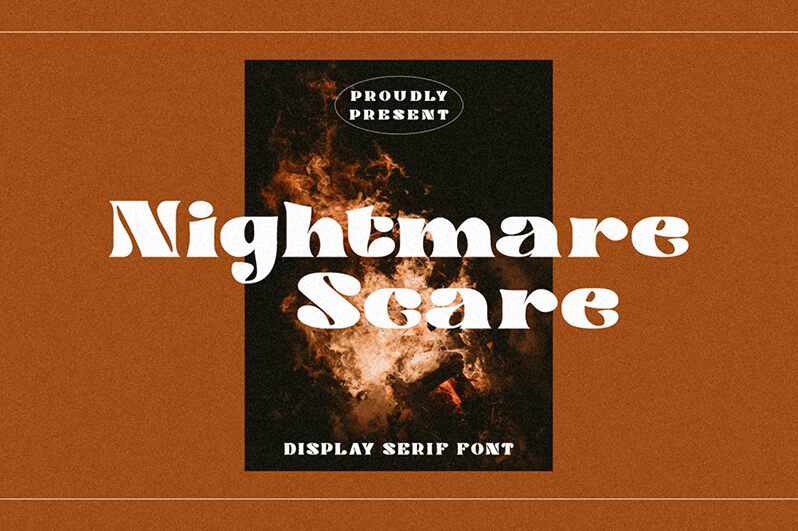
Nightmare Scare, the brainchild of Typegoals Labs, is an extra-bold vintage display font that exudes a chilling aesthetic.
With its expanded width, this font is perfect for horror movie posters, haunted house flyers, and Halloween-themed designs. Its bold and dramatic appearance will make your headlines stand out in the darkness, captivating viewers with its eerie charm. Nightmare Scare brings back the nostalgia of classic horror films while adding a modern twist to your projects.
Unleash the spooky vibes with this bone-chilling typeface!